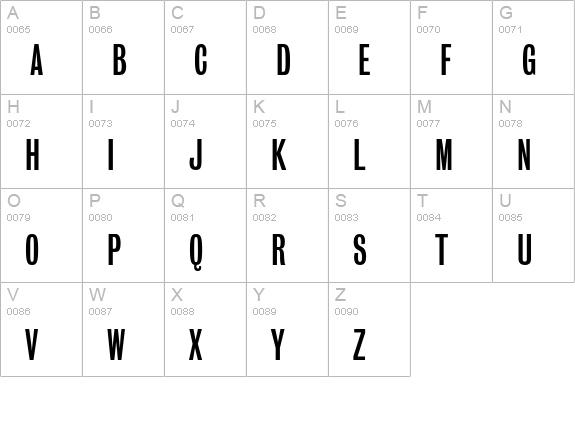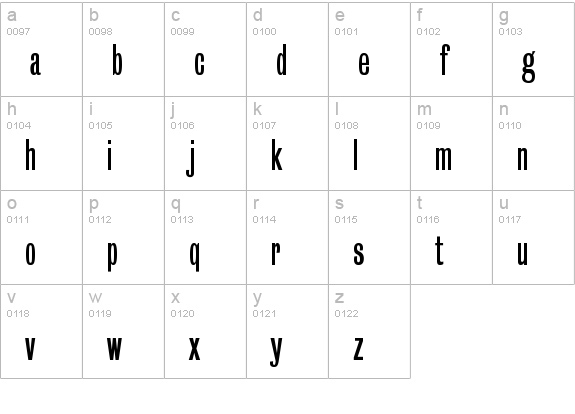
BureauGrotOneThree Font Details
BureauGrotOneThree is a versatile and modern font that exudes elegance and sophistication. With its clean lines and sharp edges, this typeface is perfect for a wide range of design projects, from branding to editorial design. The unique character of BureauGrotOneThree gives your text a professional and polished look, making it stand out in any context. What sets BureauGrotOneThree apart is not only its aesthetic appeal but also its accessibility. This font is available for free download at FontsMarket.com, allowing designers and creatives to easily incorporate it into their work without any additional cost. Whether you're working on a website, advertisement, or print design, BureauGrotOneThree is a versatile and reliable choice that will elevate your project to the next level. Don't miss out on the opportunity to enhance your designs with BureauGrotOneThree - download it for free today at FontsMarket.com and see the difference it can make in your work.